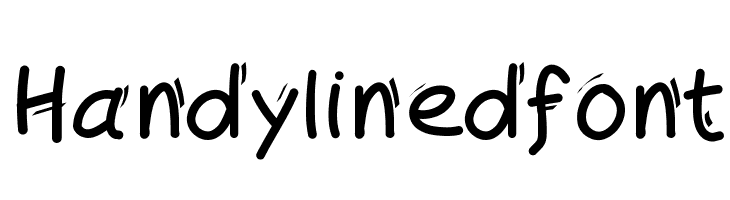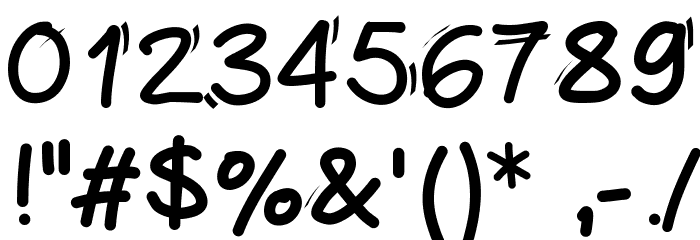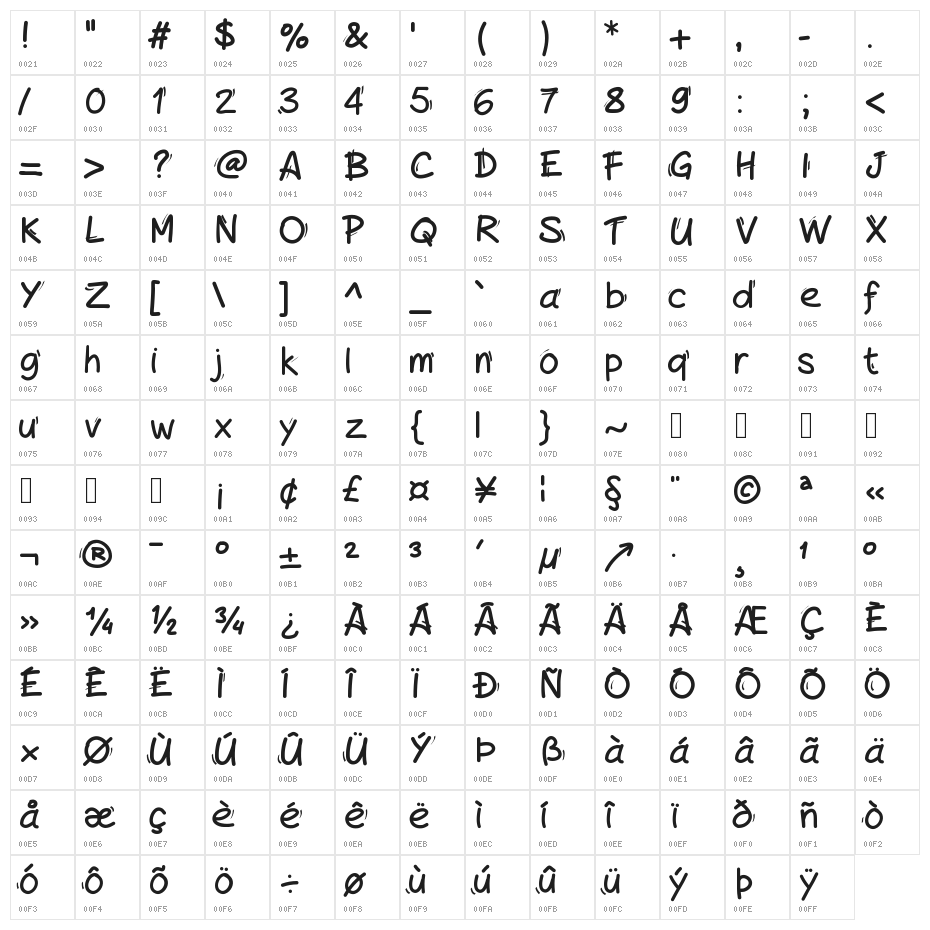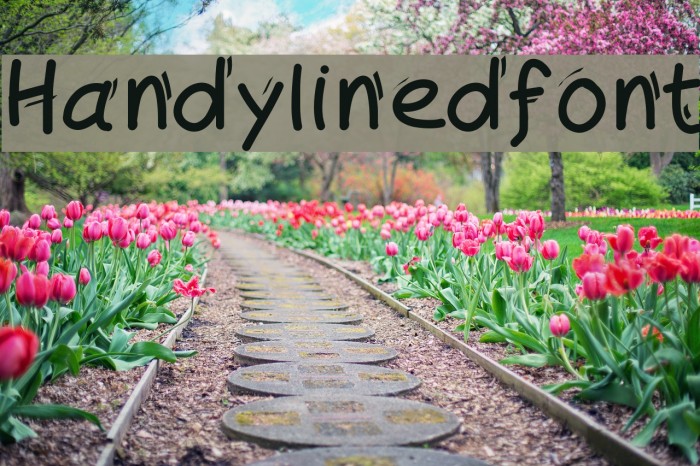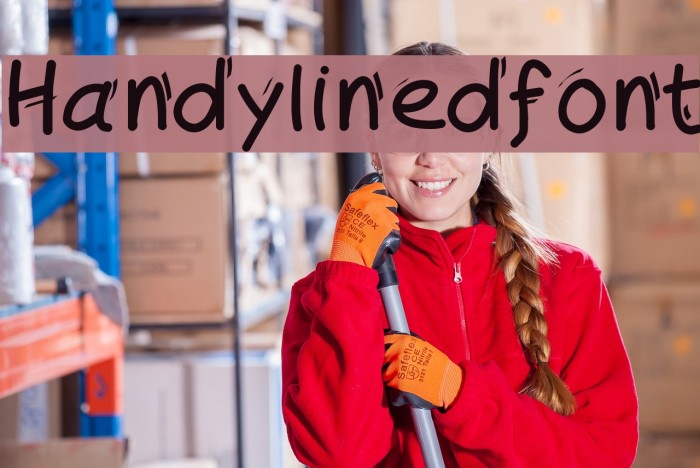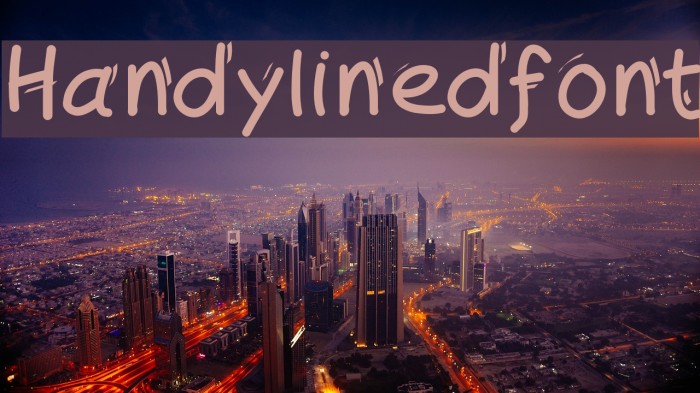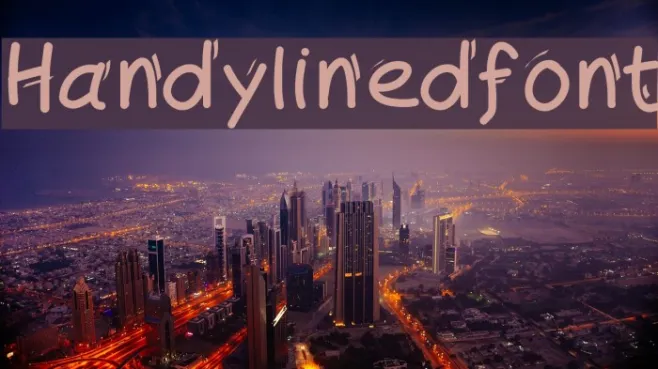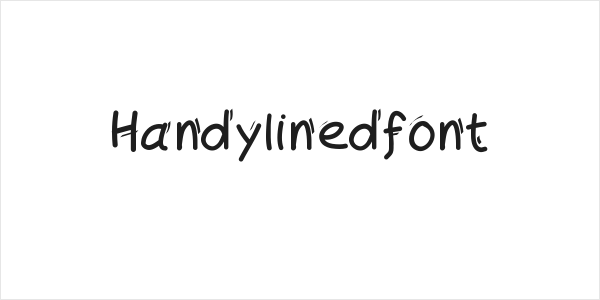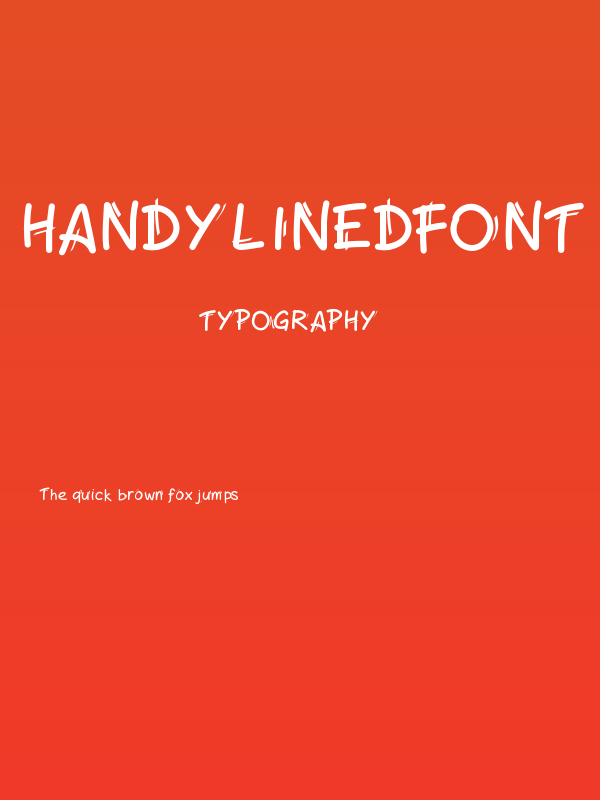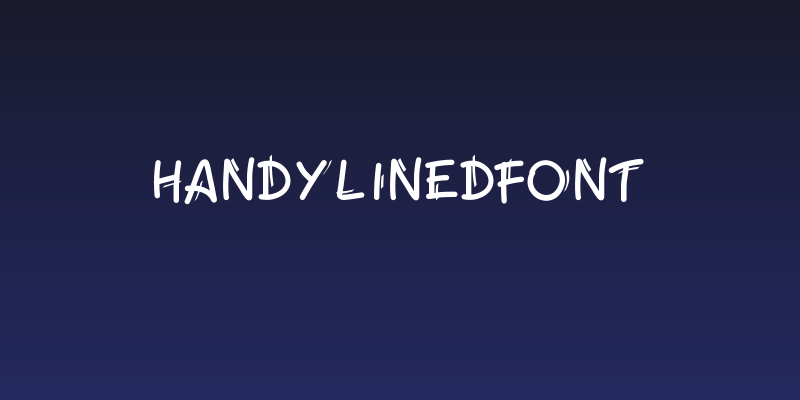
Handylinedfont Font
Handylinedfont Description
This font features a playful and energetic handwritten style, characterized by its bold and slightly irregular strokes. The letters have a casual, informal appearance, with a dynamic flow that suggests movement and spontaneity. The uppercase and lowercase letters maintain a consistent style, with rounded edges and a slight slant, enhancing the font's lively personality. Numbers and special characters are designed to match the overall aesthetic, making the font versatile for various creative applications.
| Overall Style | Playful, Energetic, Casual |
| Proposed Projects | Ideal for greeting cards, children's books, playful branding, and creative posters. |